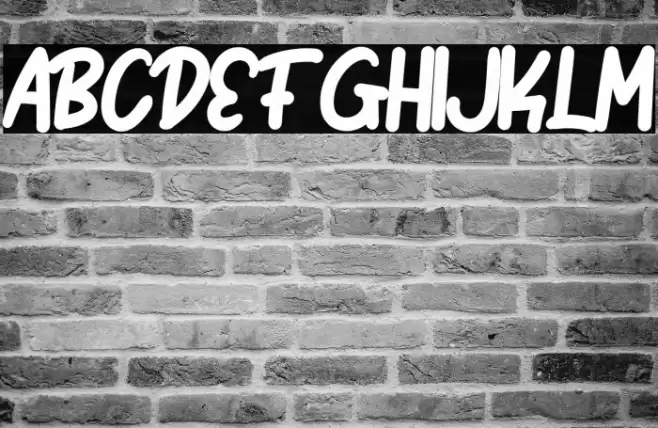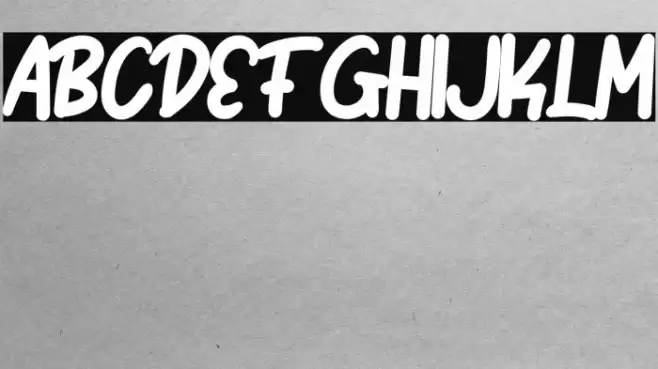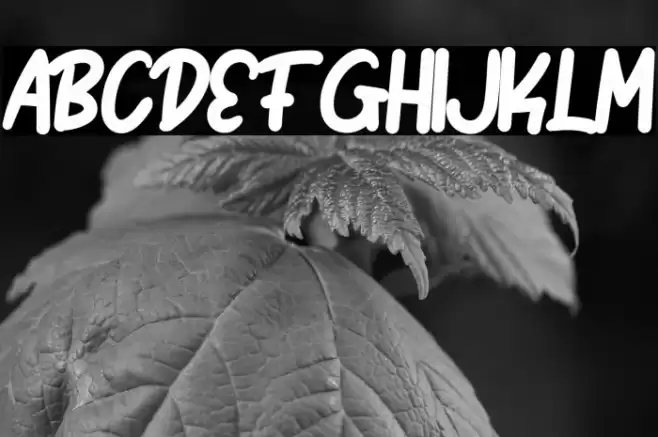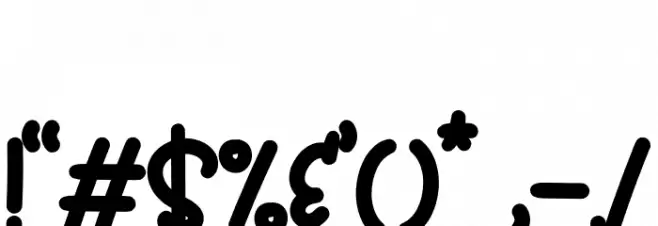
Bomb Da Gone Font
Bomb Da Gone Description
This font features a bold, energetic style with a handwritten appearance. The letters are thick and rounded, giving a playful and dynamic feel. The uppercase and lowercase letters maintain a consistent flow, with slightly exaggerated curves and strokes that add to its lively character. The numbers and special characters follow the same style, ensuring uniformity across all glyphs. This font is ideal for projects that require a fun and informal touch, making it perfect for creative designs.
A bold, playful handwritten font with rounded, dynamic strokes from Uncategorized fonts.
- Font: Bomb Da Gone
- Proposed Projects: Ideal for posters, children's books, comic strips, and playful branding.
- Overall Style: Playful